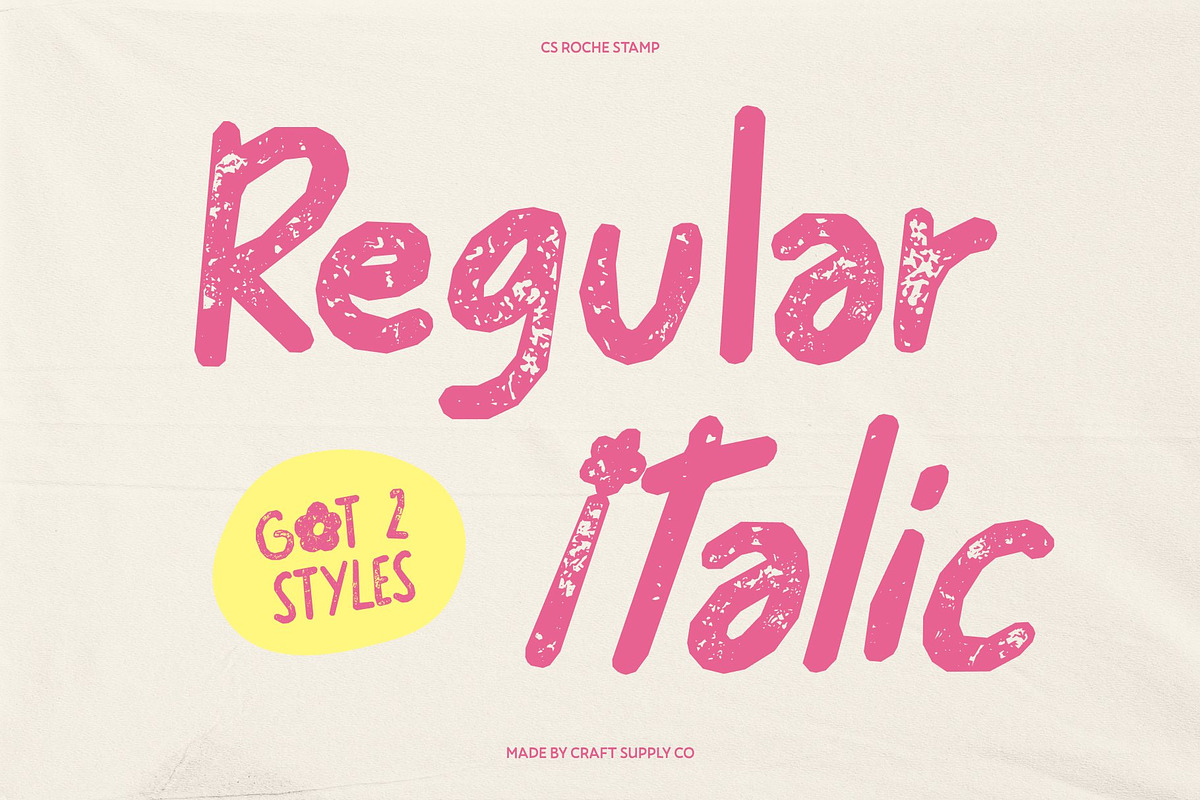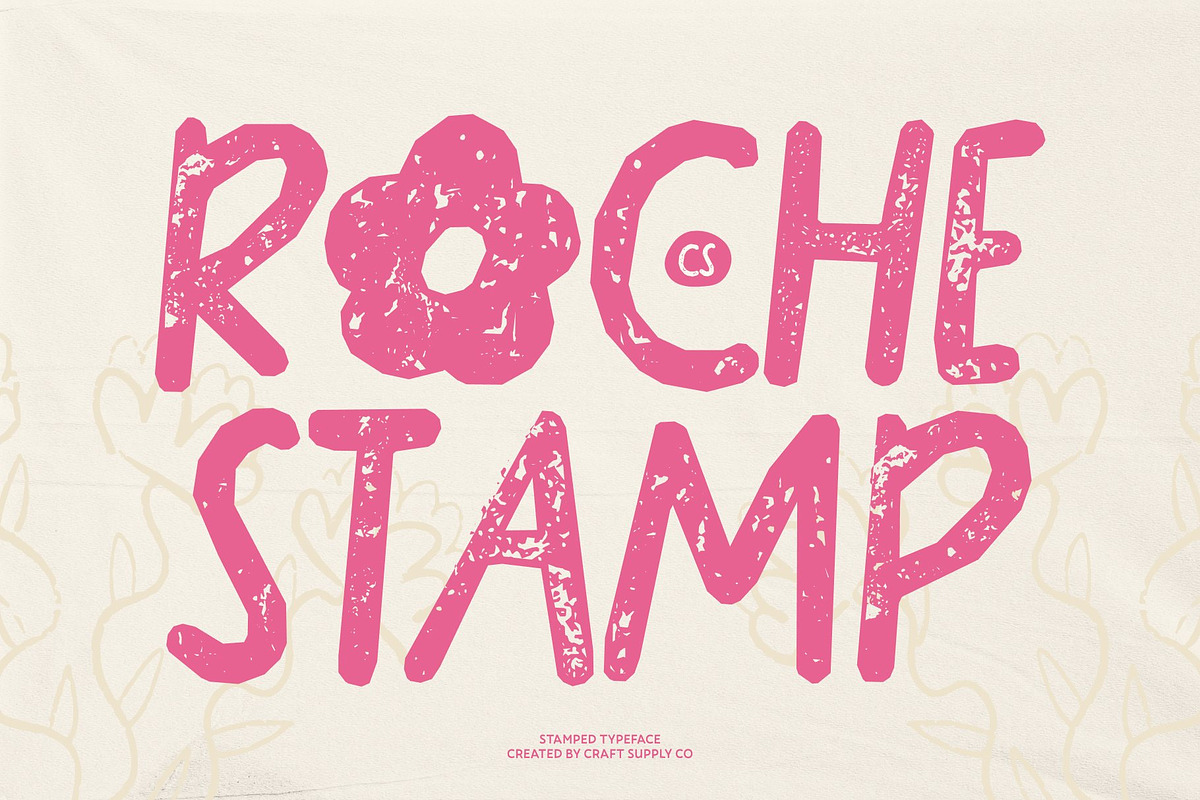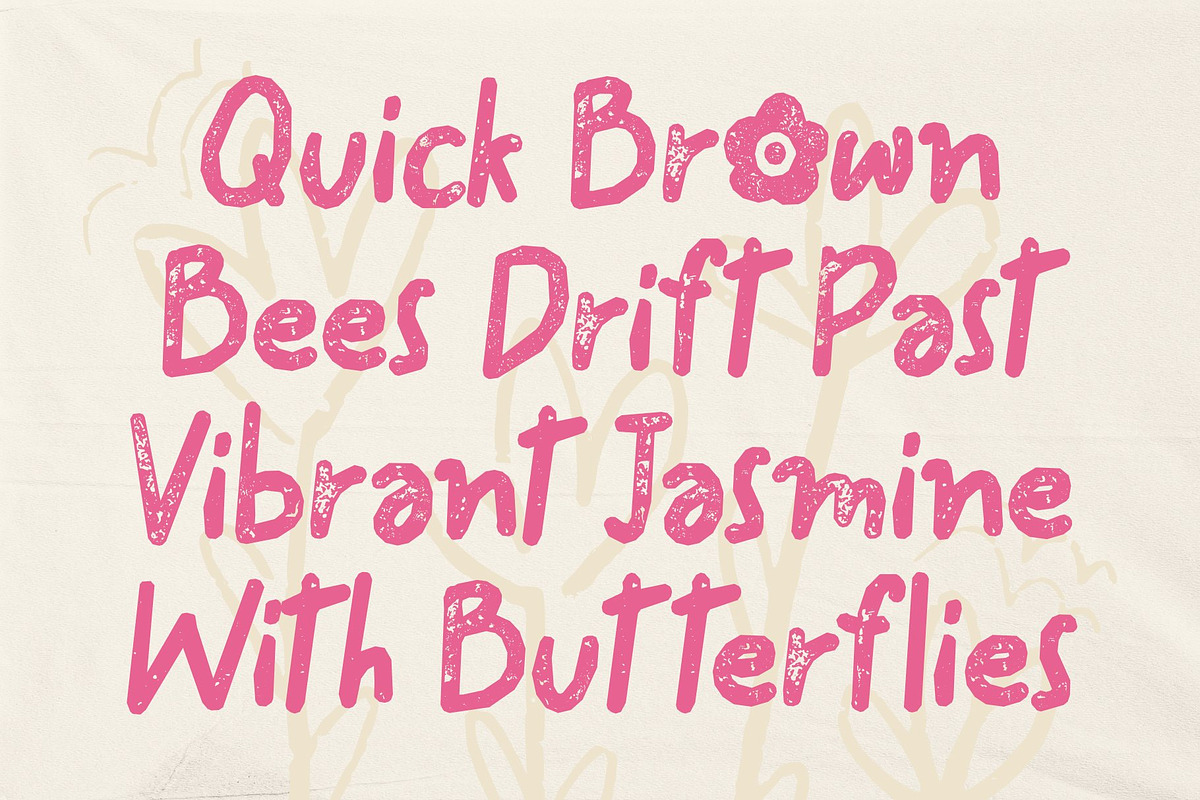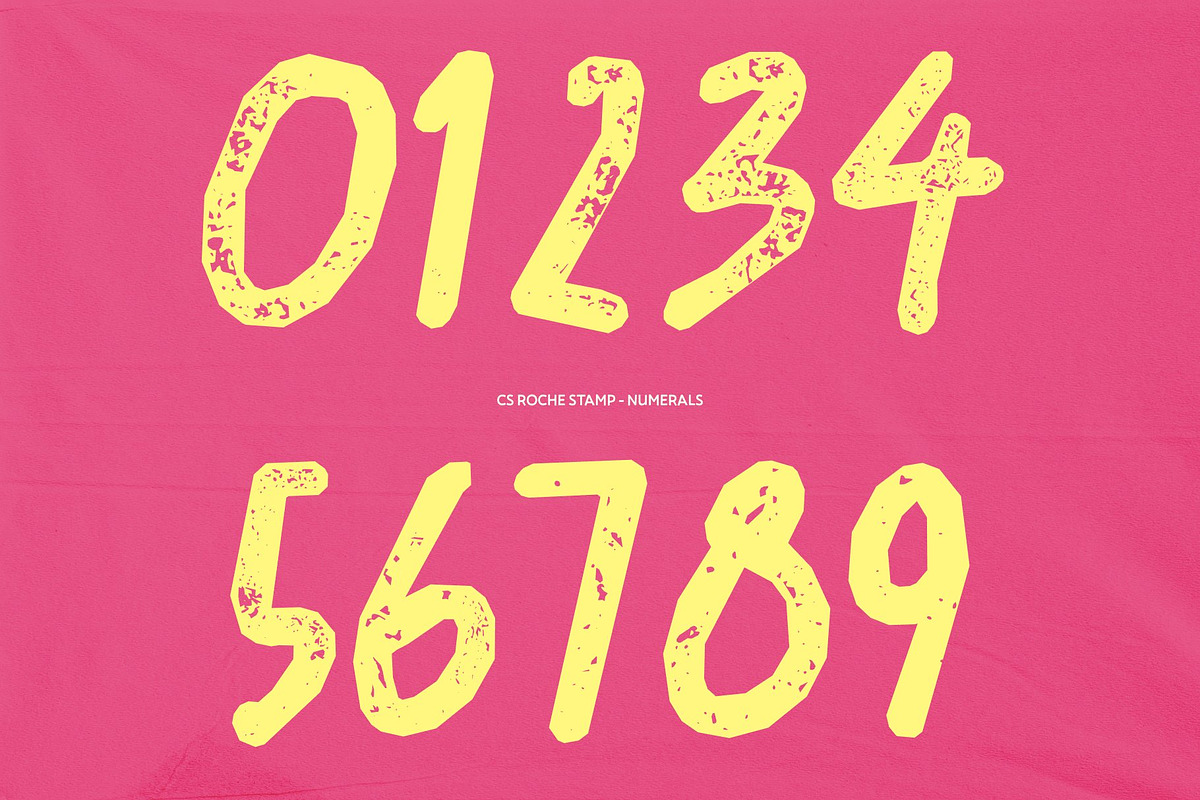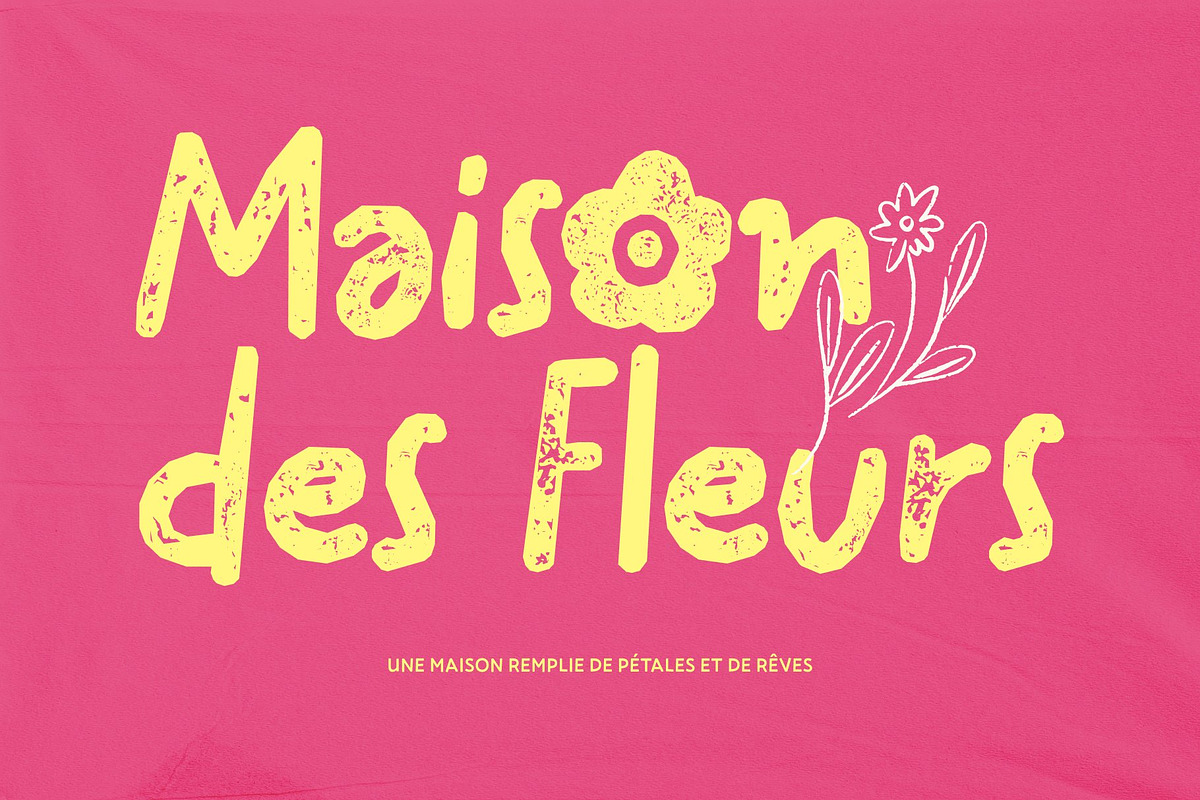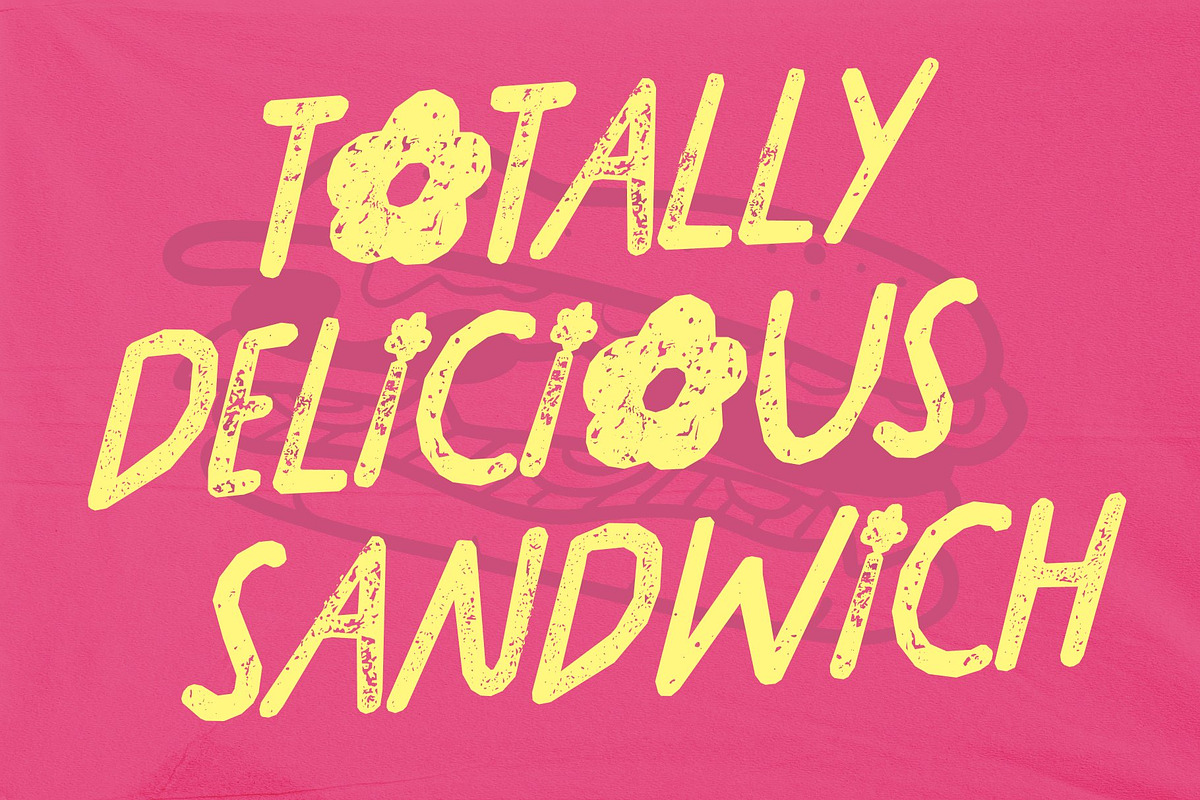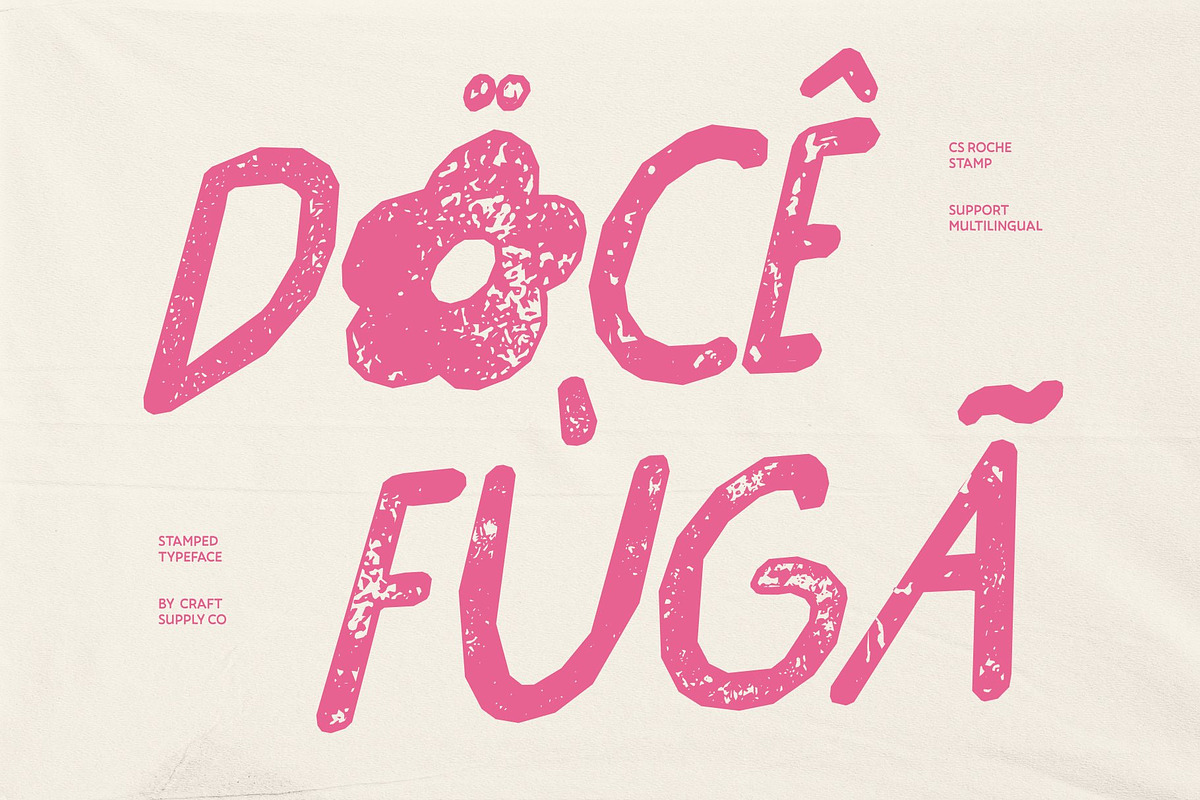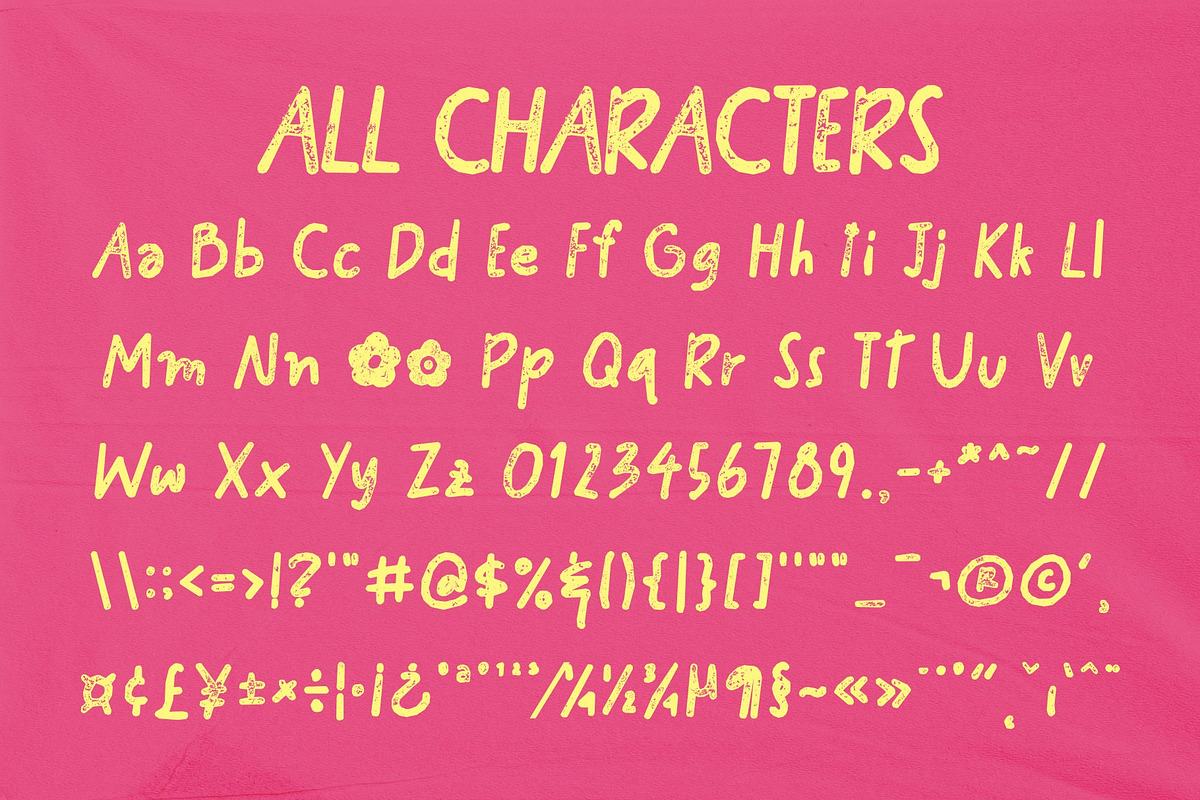
CS Roche Stamp
Bring genuine warmth, creativity, and approachability to your next design project with CS Roche Stamp, a fun handwritten display typeface. Every letter carries a distinct sense of motion and emotion, feeling like authentic handwriting crafted with personal care. The smooth curves and playful rhythm establish an immediately friendly tone that captures attention while maintaining a relaxed and inviting atmosphere for your audience.
What truly sets this font apart is its built-in stamp effect, giving the characters a vintage character, artistic texture, and charmingly old design. This unique distressing adds tangible depth and a distressed look to the page, offering a tactile illusion that feels both nostalgic and full of artistic personality. It effortlessly blends casual handwritten charm with a weathered, time-worn aesthetic.
This typeface is exceptionally versatile for a wide range of real-world applications where a human-centric, artisanal look is desired. Use CS Roche Stamp for charming apparel branding, rustic boutique packaging, custom stationery, or heartfelt greeting cards. It also shines in lifestyle blog headers, children book titles, and artisanal food packaging, where creating an immediate sense of care and craftsmanship is essential for connecting with customers.
Elevate your design toolkit with a lettering solution that balances playful informality with striking textural detail. CS Roche Stamp transforms ordinary words into bespoke statements, ensuring your messaging always looks lovingly crafted and entirely original. Embrace the cozy, textured appeal of this unique display font and let your creative projects speak with warmth, style, and undeniable character.
CS Roche Stamp Regular
CS Roche Stamp Italic